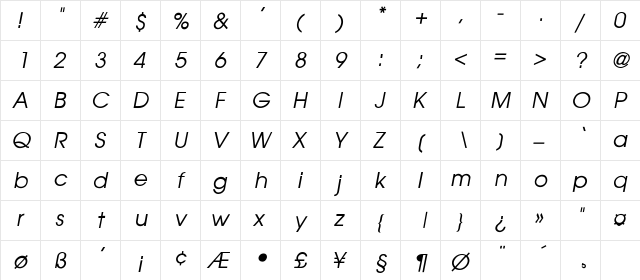
Noveau Riche Thin-Italic Regular
Design Context for Noveau Riche Thin-Italic Typeface
Noveau Riche Thin-Italic is a composed and adaptable typeface that performs quietly and consistently across a wide range of design contexts. The dynamic lean of this cut emphasises speed and emphasis in any layout. Its slender proportions lend an understated elegance to any composition.